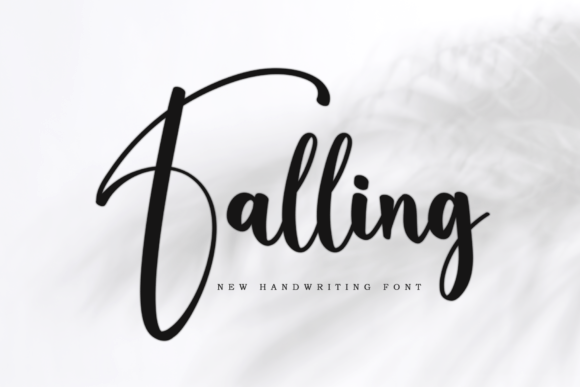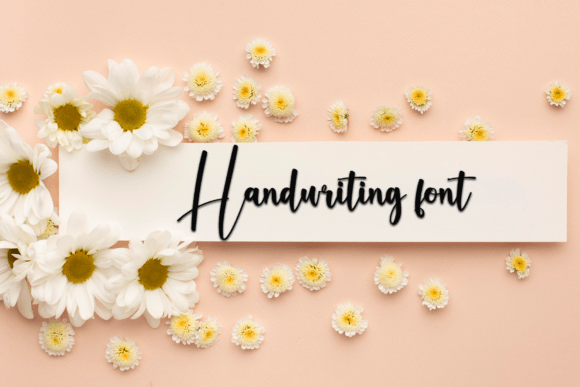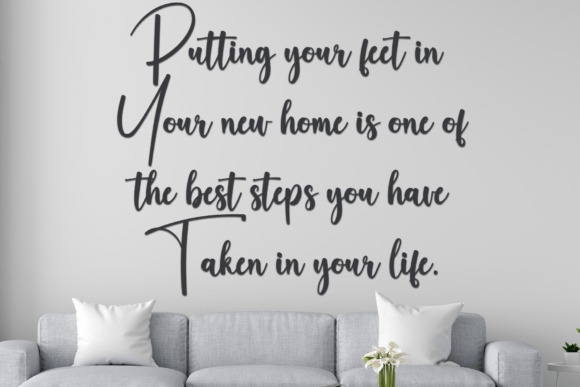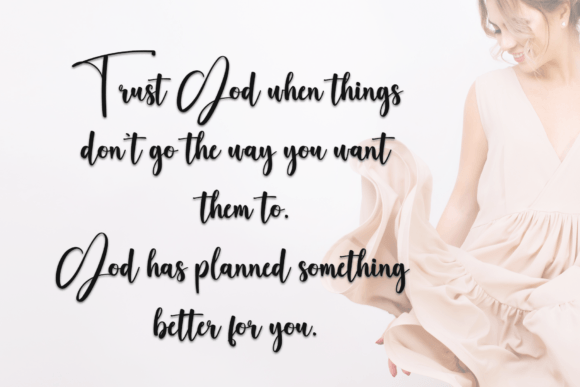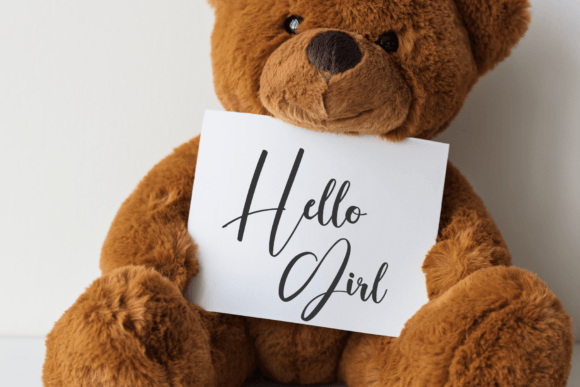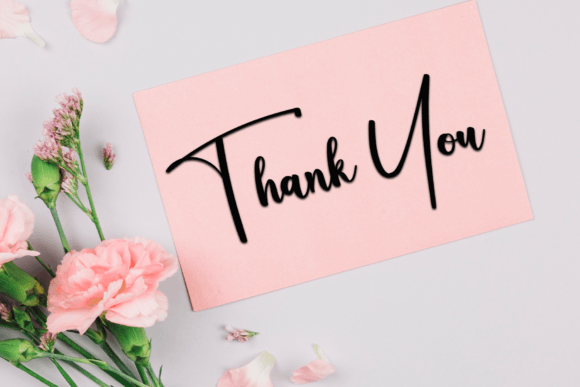
Falling Font
About Falling Font
“Falling” is a slim and delicate handwritten font that exudes a sense of daintiness and joy. This font is an ideal choice for crafting wedding invitations, cards, or any other design where you want to convey a romantic and personalized touch.
The font’s slim and delicate design adds a touch of elegance and intimacy to your work, making it perfect for projects that require a heartfelt and personal aesthetic. Whether you’re creating wedding stationery, heartfelt cards, or other romantic designs, “Falling” effortlessly enhances your projects with its gentle and delicate typography.
“Falling” is a font that captures the essence of romance and personalization, making it a valuable asset for designers and creators seeking to infuse their work with an intimate and heartfelt feel.
In summary, “Falling” is more than just a font; it’s a creative asset that brings a sense of delicacy and romance to your design endeavors. Its slim and delicate design, combined with its intimate appeal, makes it a valuable addition to your font collection. Embrace “Falling” and watch as it enriches your creative projects with its heartfelt and personalized typography.